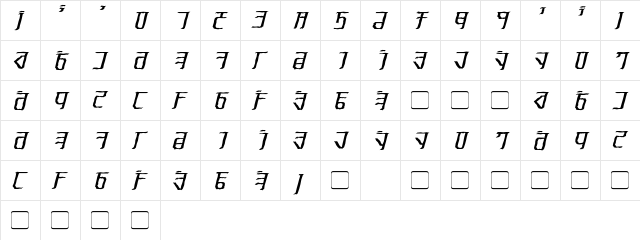
Exodite Distressed Italic
Design Context for Exodite Distressed Typeface
Exodite Distressed embraces imperfection — its rough, textured character adds raw authenticity to designs that want to feel lived-in and unconventional. The slanted form adds forward momentum and visual energy.
A strong fit for alternative music projects, graffiti-adjacent design, and anything that deliberately resists polish.
Pro Tip: Use Exodite Distressed at larger sizes where the texture and irregularity of each letterform can be clearly seen — it loses its character at small sizes.